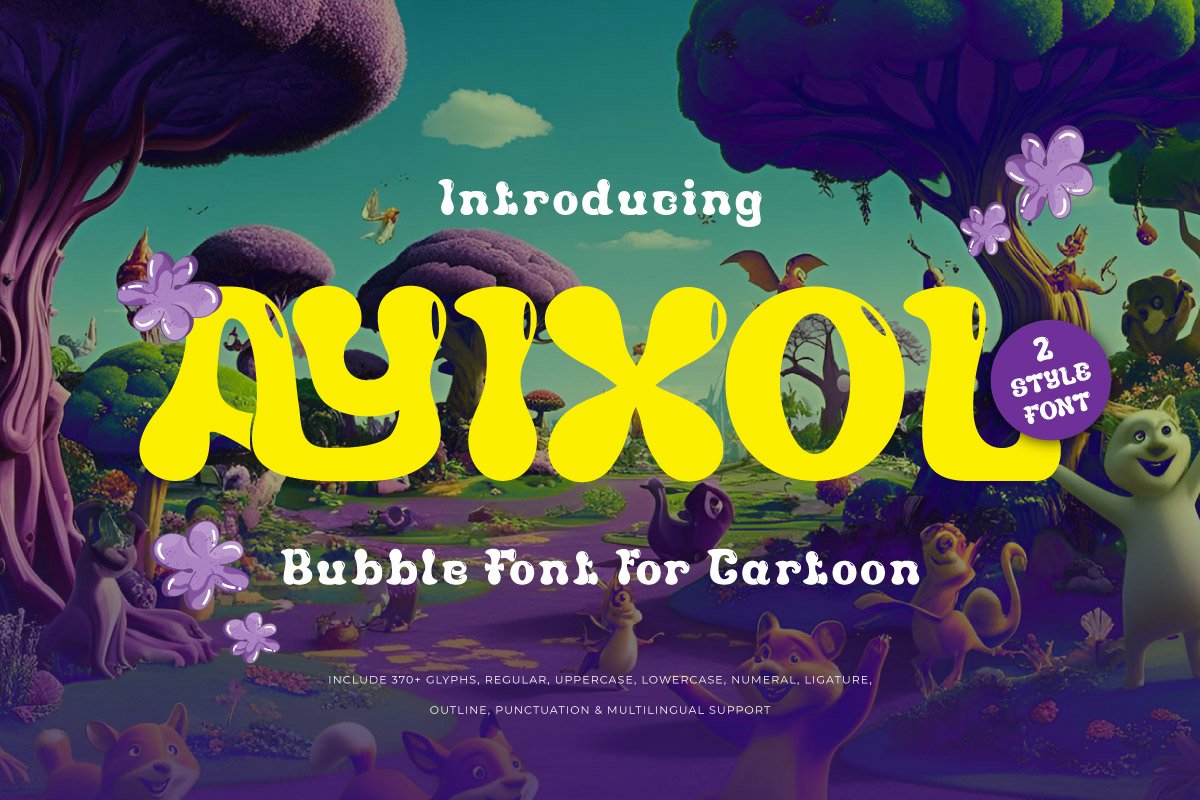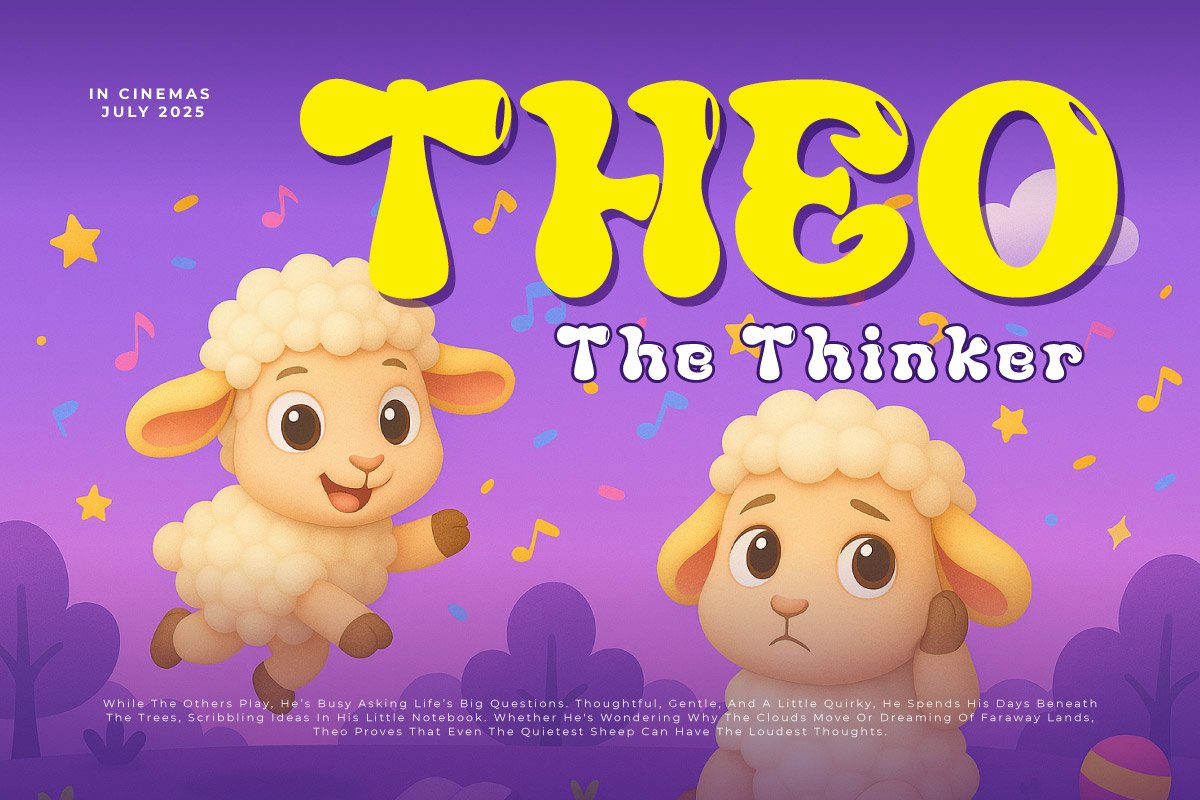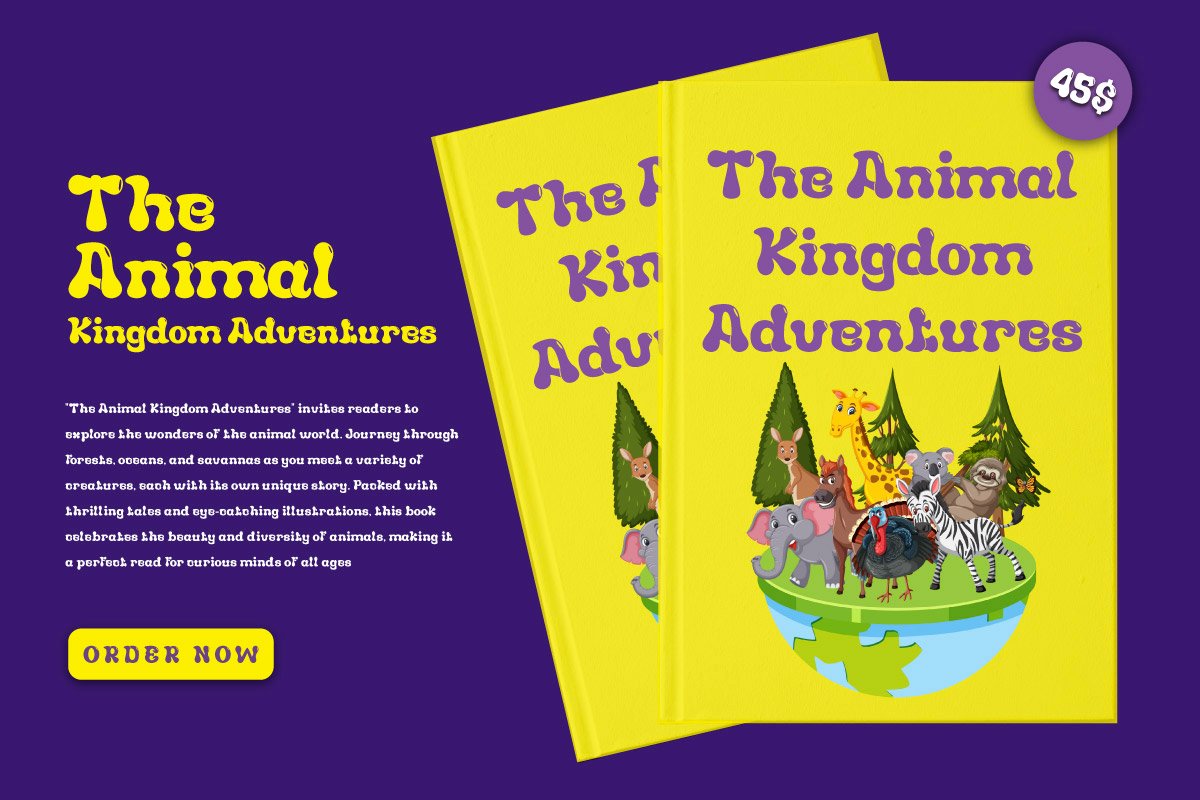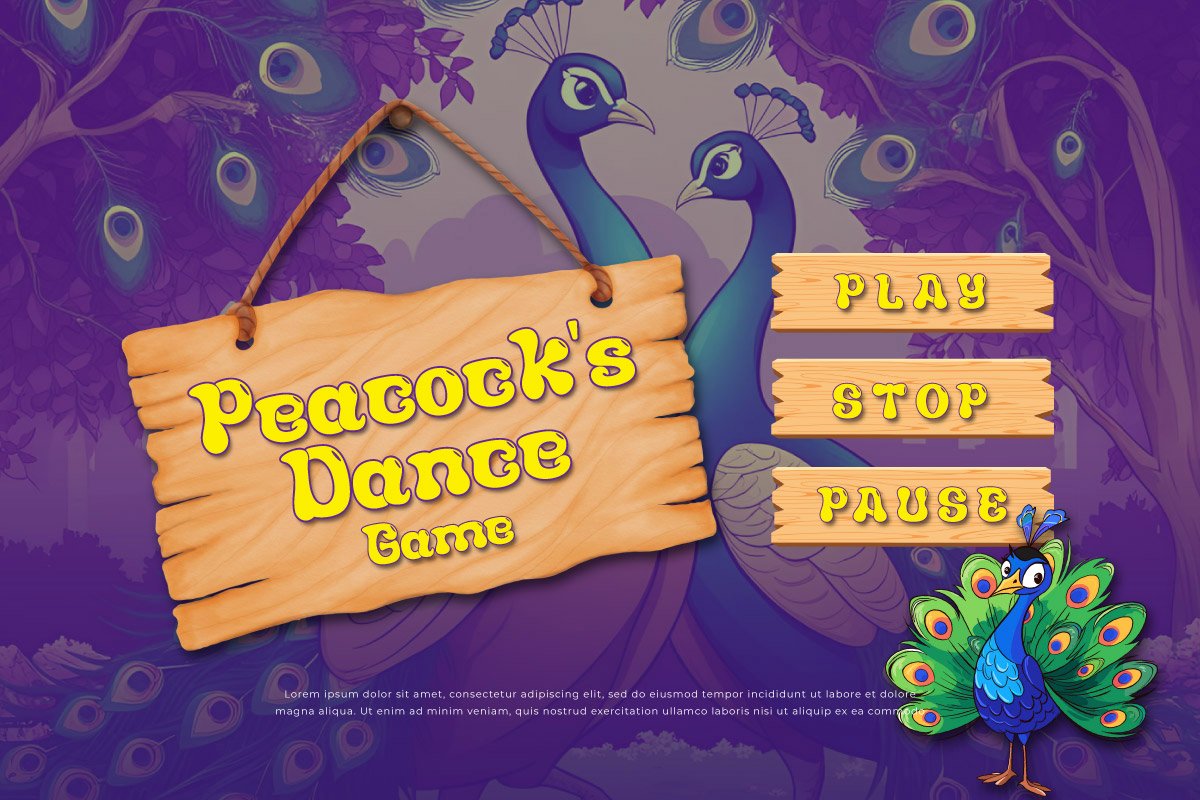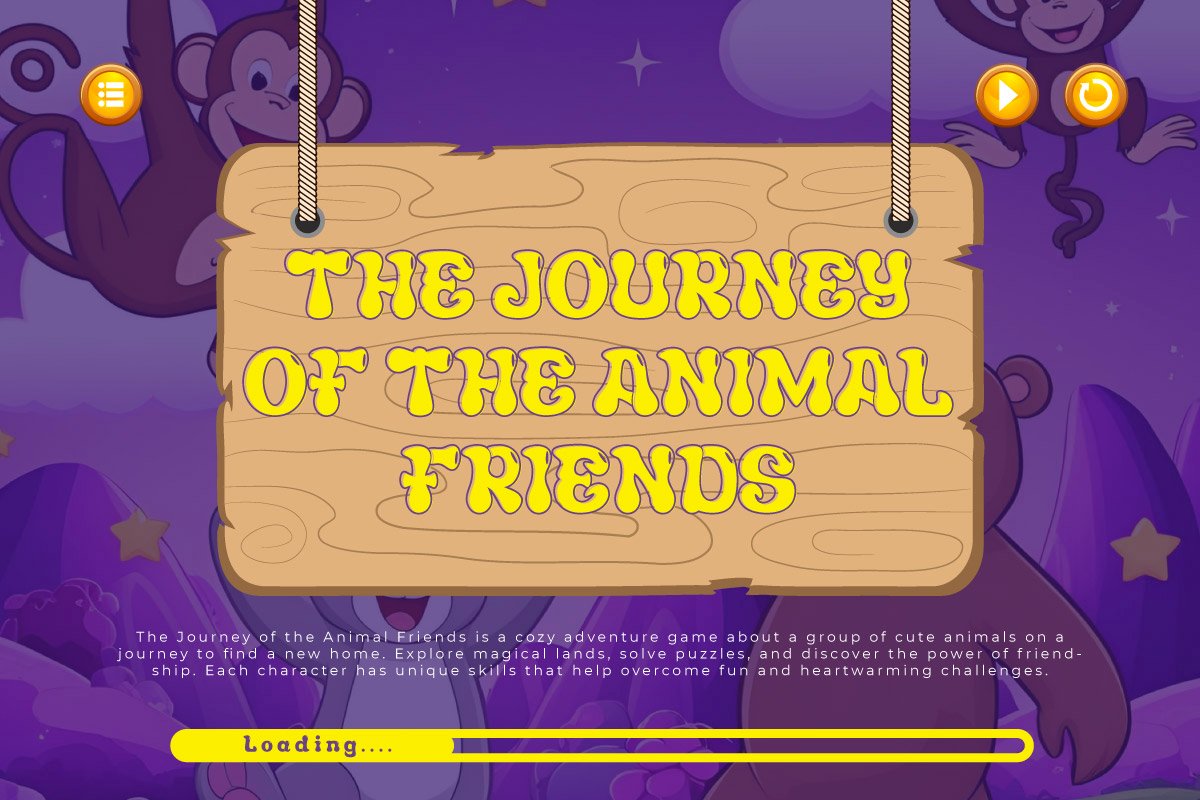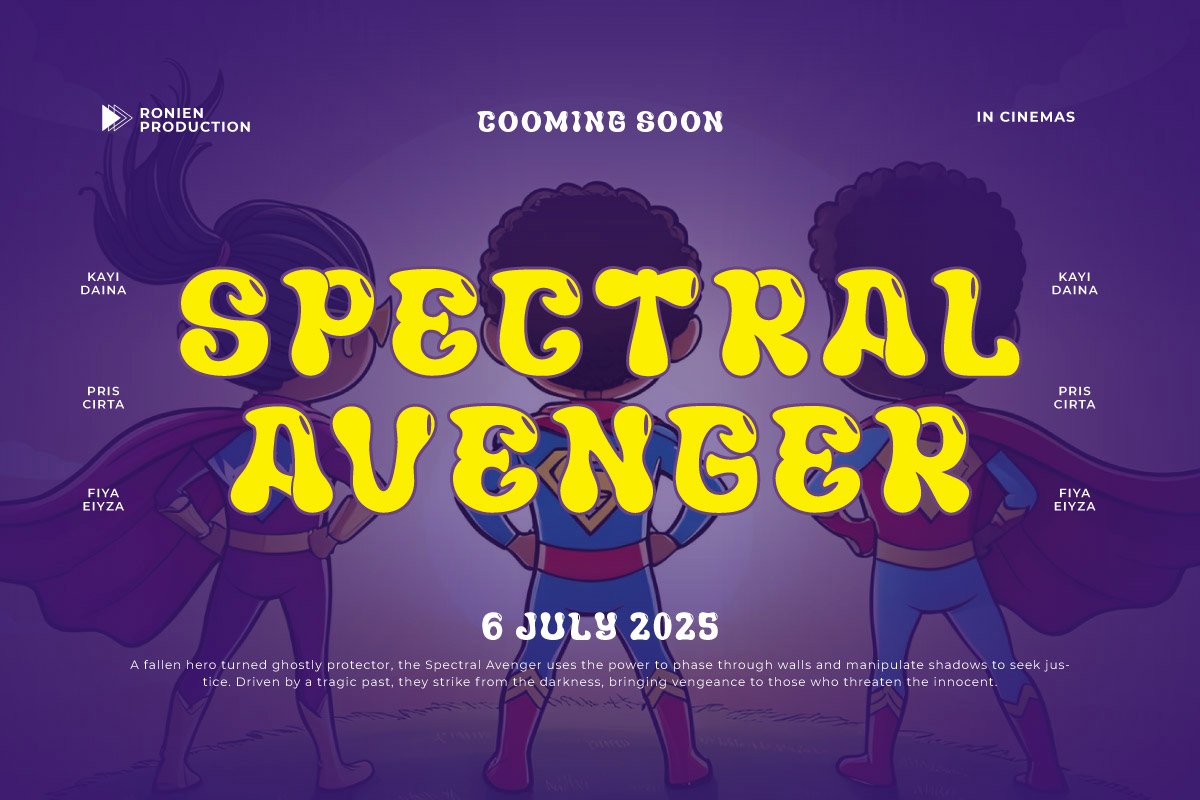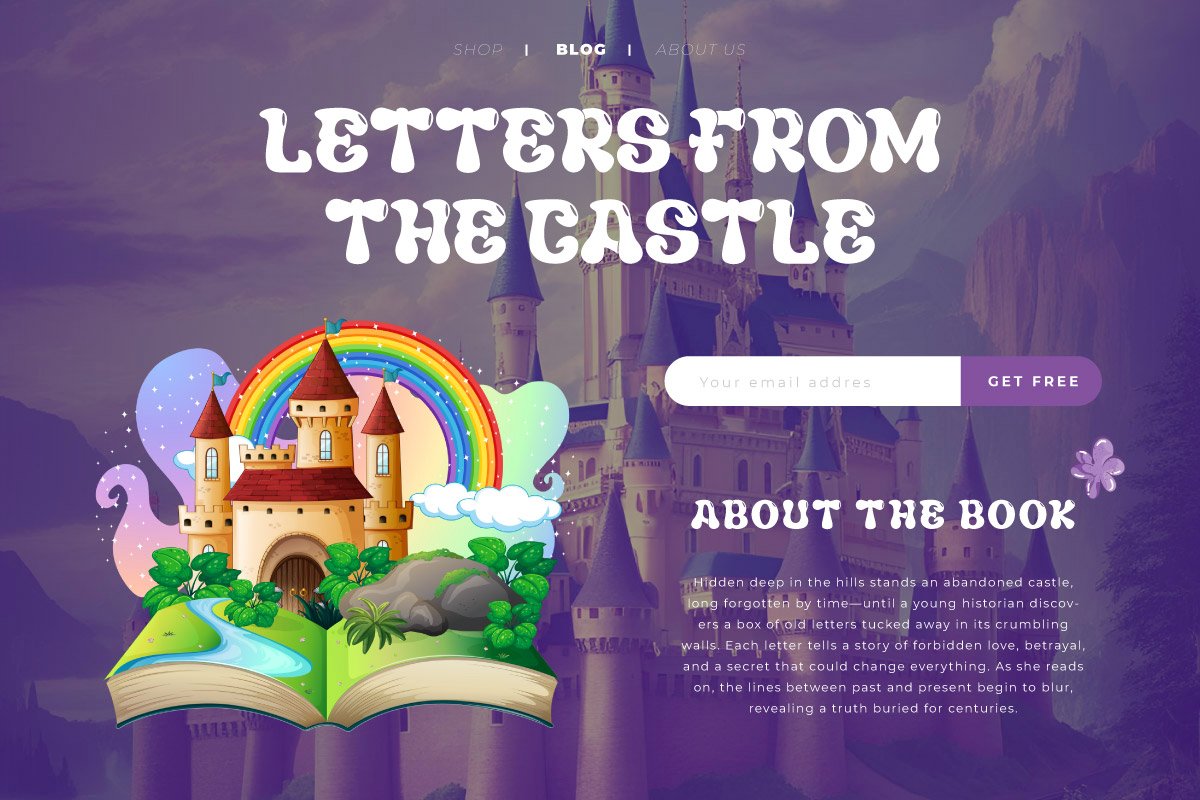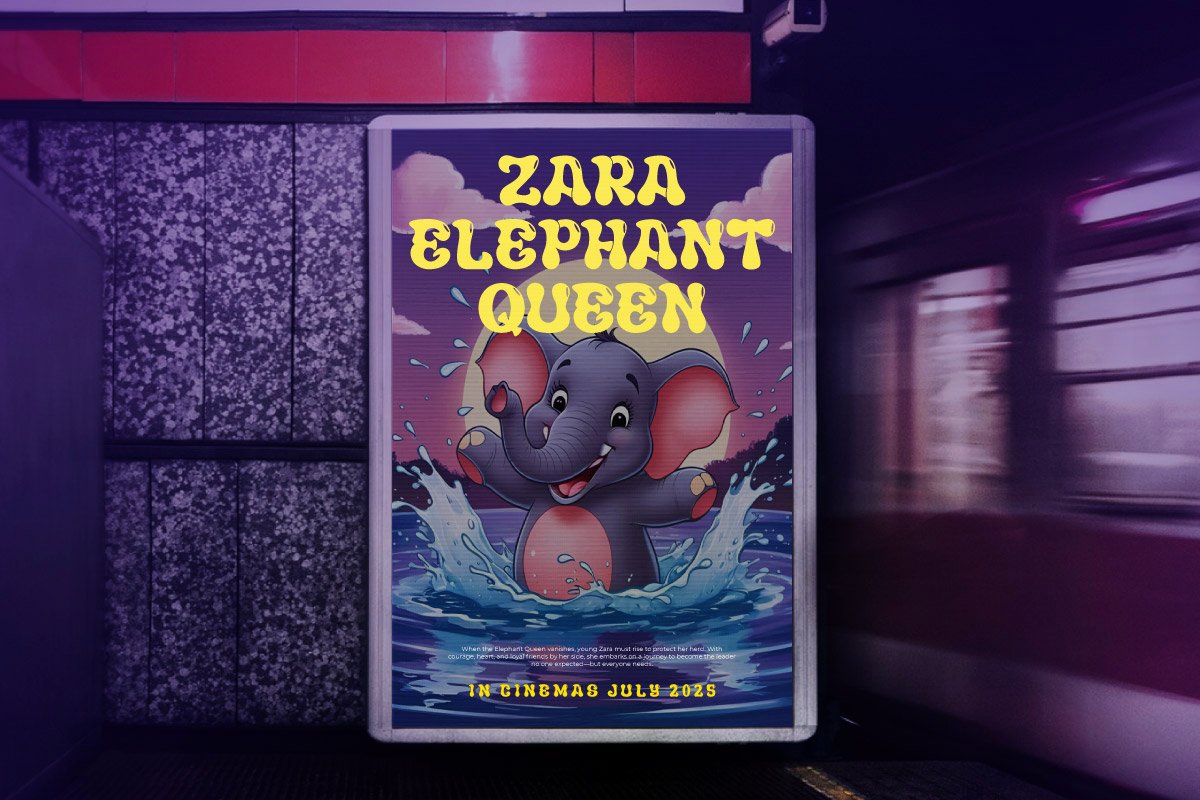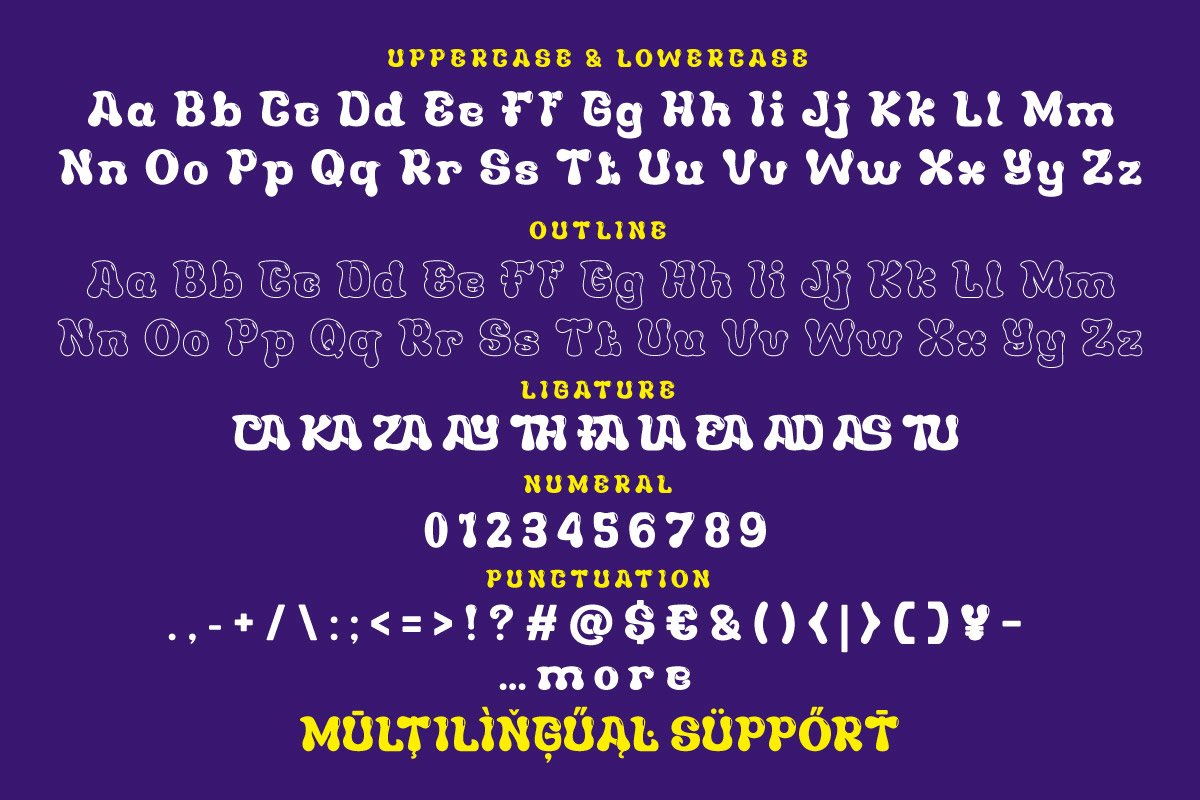
- Ayixol – Display Bubble Font
Ayixol is a delightful bubble font designed to capture the hearts of both kids and creatives. With its plump, rounded letterforms and joyful personality, Ayixol brings a sense of fun and excitement to any project. Whether you’re designing for cartoons, kids’ books, party invites, or playful branding, this font delivers maximum charm with every curve.
What makes Ayixol special is its ability to balance readability with playfulness. The exaggerated bubble shapes give each character a lively, animated feel — like they’re bouncing across the page. It’s perfect for projects that need to be loud, lovable, and full of energy.
From colorful posters to children’s YouTube intros, Ayixol is a great choice when your design needs to shout “fun!” It turns ordinary words into eye-catching, smile-inducing visuals that your audience will instantly connect with.